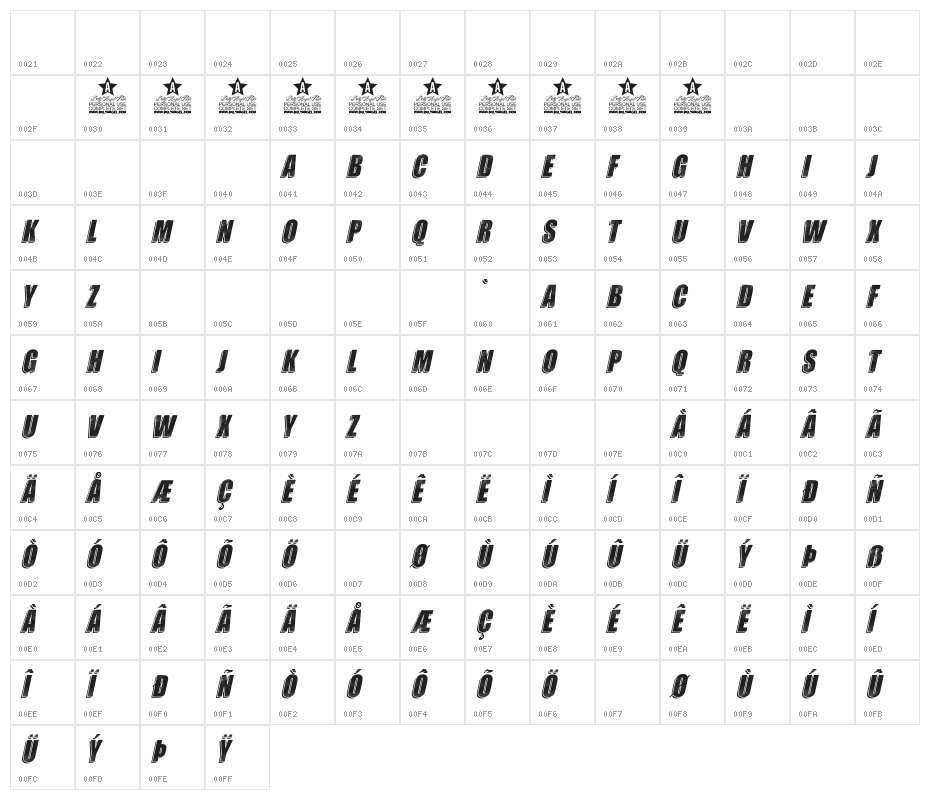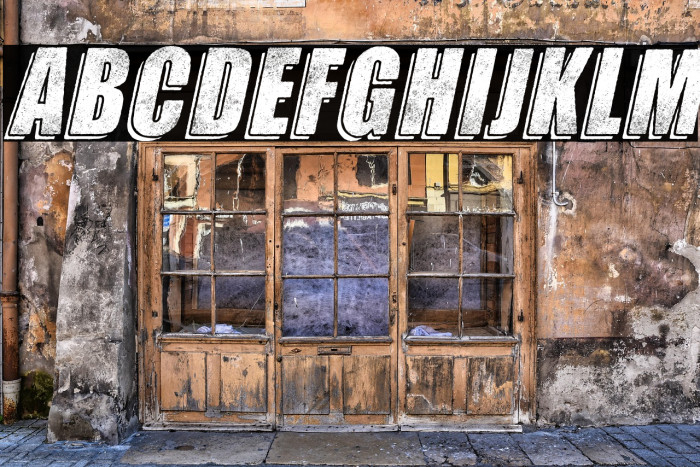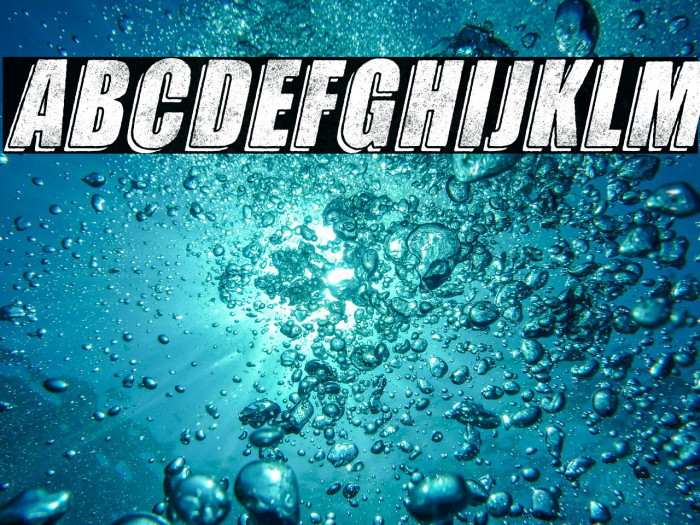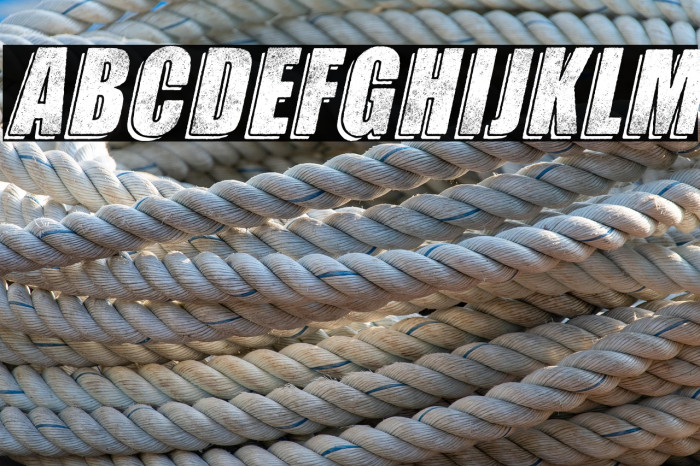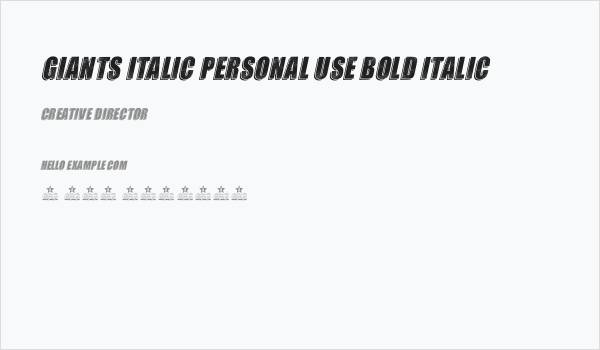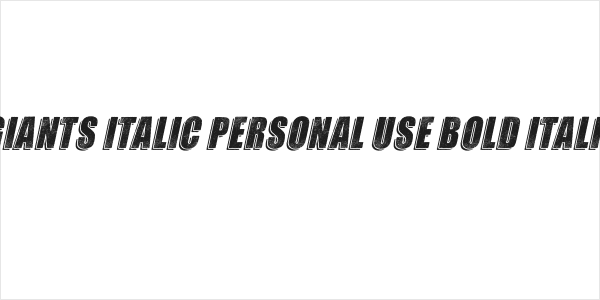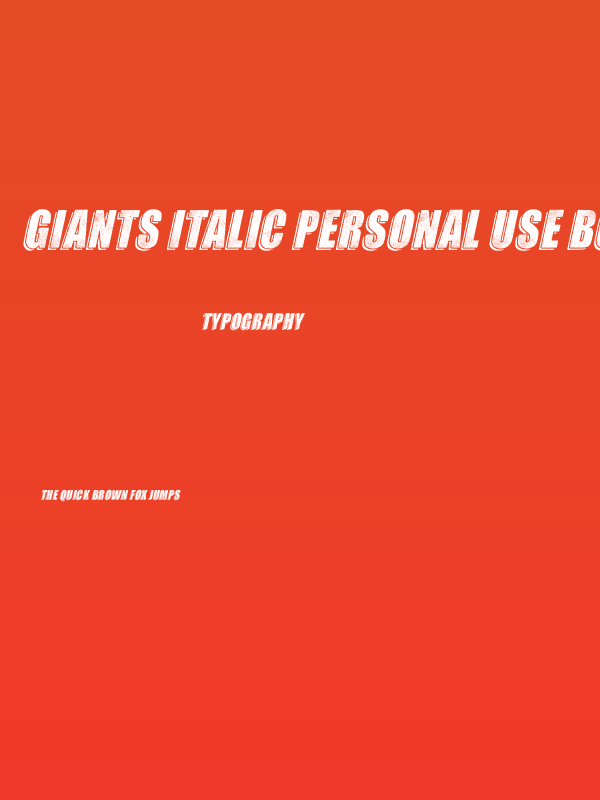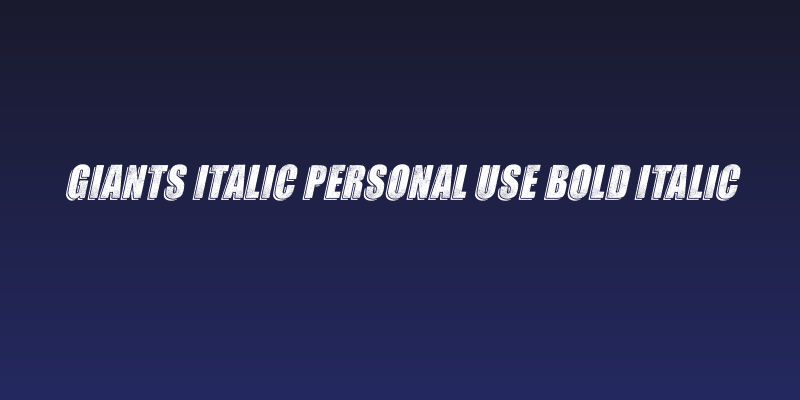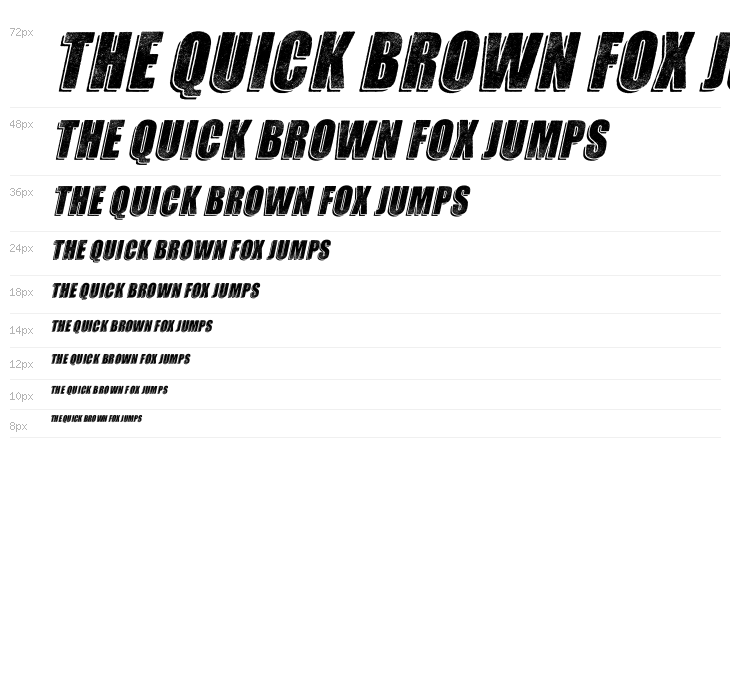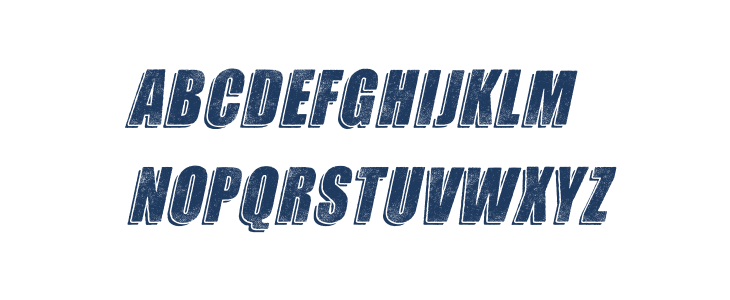
GIANTS ITALIC PERSONAL USE Bold Italic Font
GIANTS ITALIC PERSONAL USE Bold Italic Description
This font features a bold and italicized style with a distinct textured appearance, giving it a rugged and dynamic look. The uppercase letters are prominent and slightly slanted, enhancing the italic effect. The texture within each character adds a vintage, distressed feel, making it stand out for creative and impactful designs. The bold weight ensures that the font captures attention, while the italic slant adds a sense of motion and energy. This combination of boldness and texture makes it ideal for projects that require a strong visual presence.
| Overall Style | Vintage, Decorative |
| Proposed Projects | Ideal for posters, logos, headlines, and branding materials that require a bold and dynamic look. |